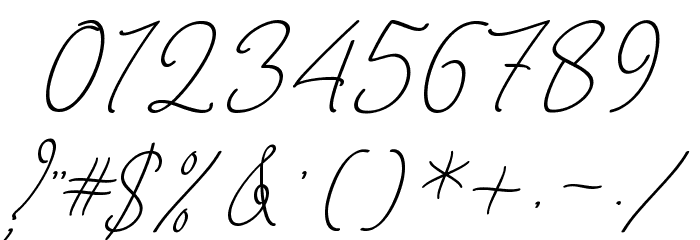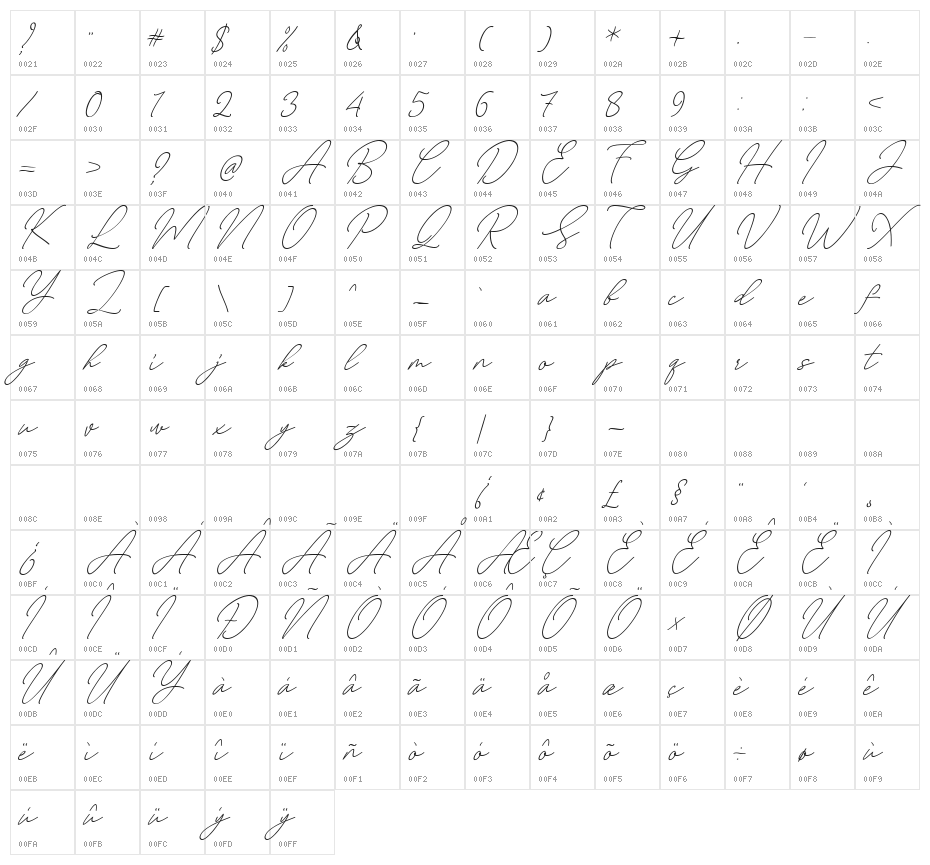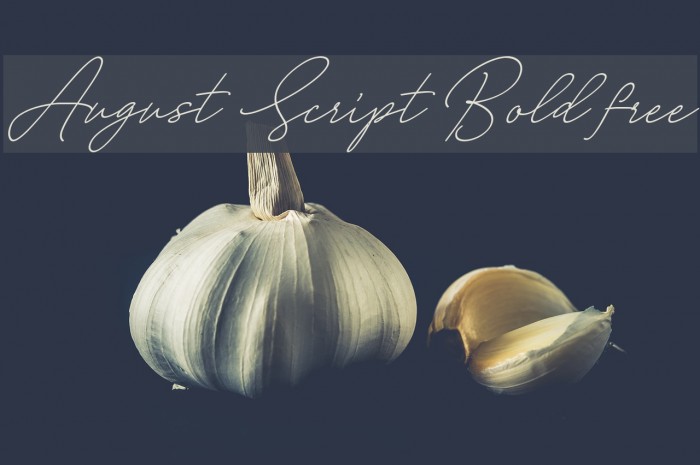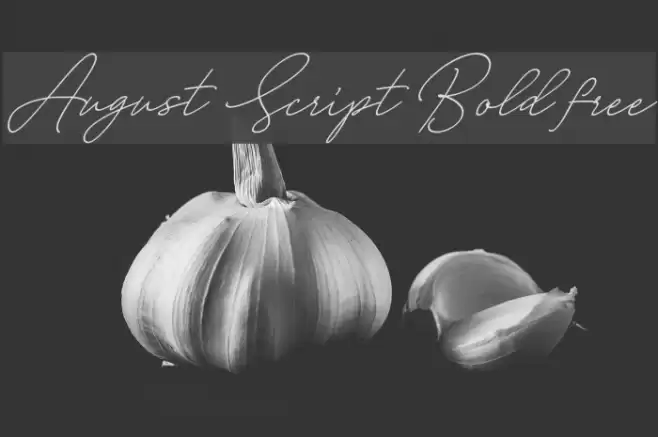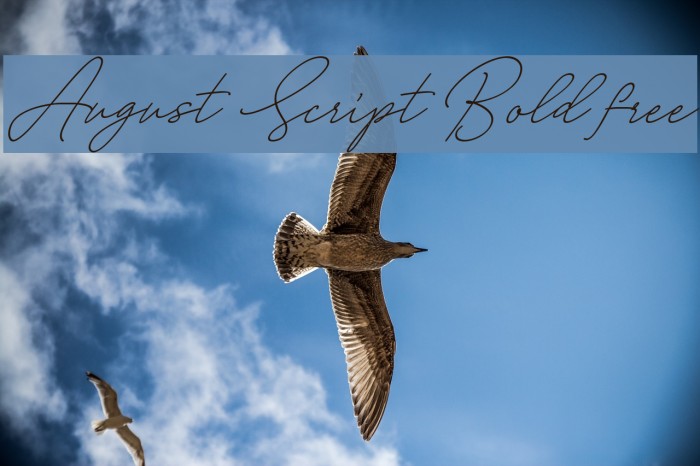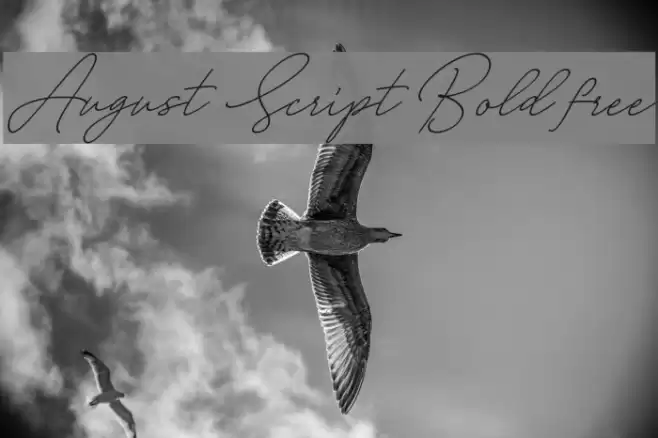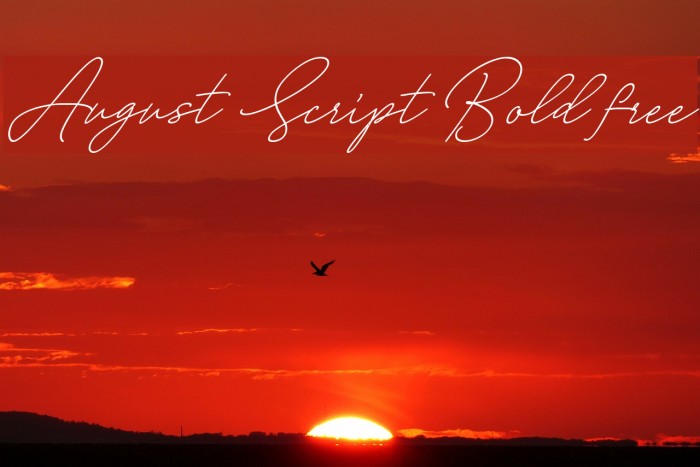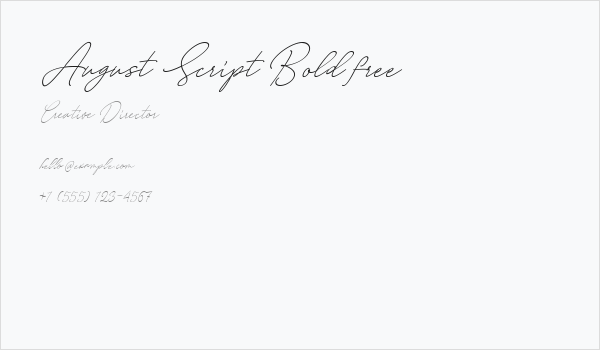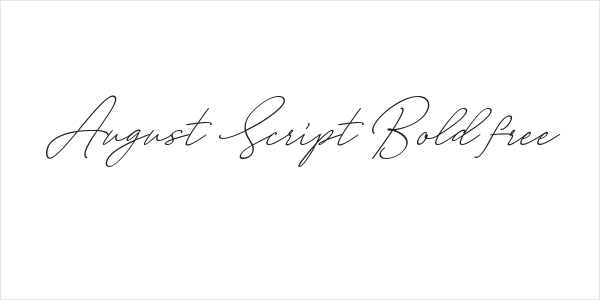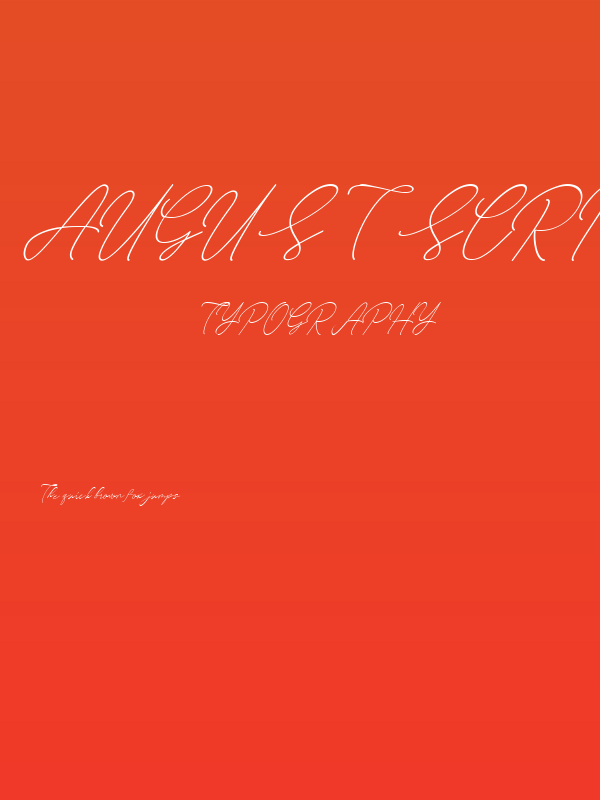
August Script Bold free Font
August Script Bold free Description
This elegant script font features a flowing, cursive style with a bold presence. The characters are interconnected, creating a seamless and fluid appearance. The uppercase letters are tall and graceful, while the lowercase letters maintain a consistent slant, enhancing the script's natural rhythm. The numerals are distinct yet harmonize well with the alphabet, and the special characters are crafted to match the overall aesthetic. This font exudes sophistication and charm, making it ideal for projects that require a touch of elegance.
| Proposed Projects | Ideal for wedding invitations, elegant branding, greeting cards, and luxury packaging. |